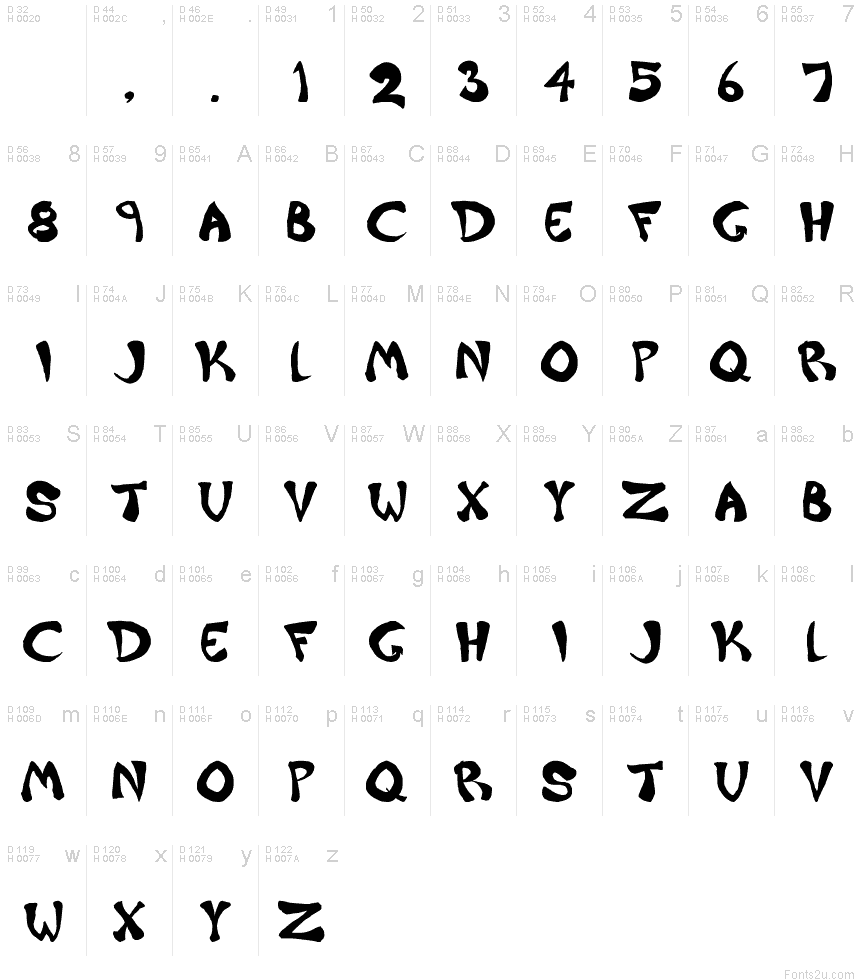
Raiderz
Raiderz by Chris Hansen is a free comic display font with a scrappy fantasy-comic edge. The caps look carved from thick black shapes, with uneven curves, pinched joins, and sharp wedge-like points that make the alphabet feel restless, handmade, and a little barbaric.
It fits poster titles, game logos, zine covers, event flyers, and short chapter openers where that rough-hewn mood can carry the page. As a free font, Raiderz works best in brief display settings such as title cards or monograms, because the letters have so much weight and motion that even a few words feel loud and dramatic.